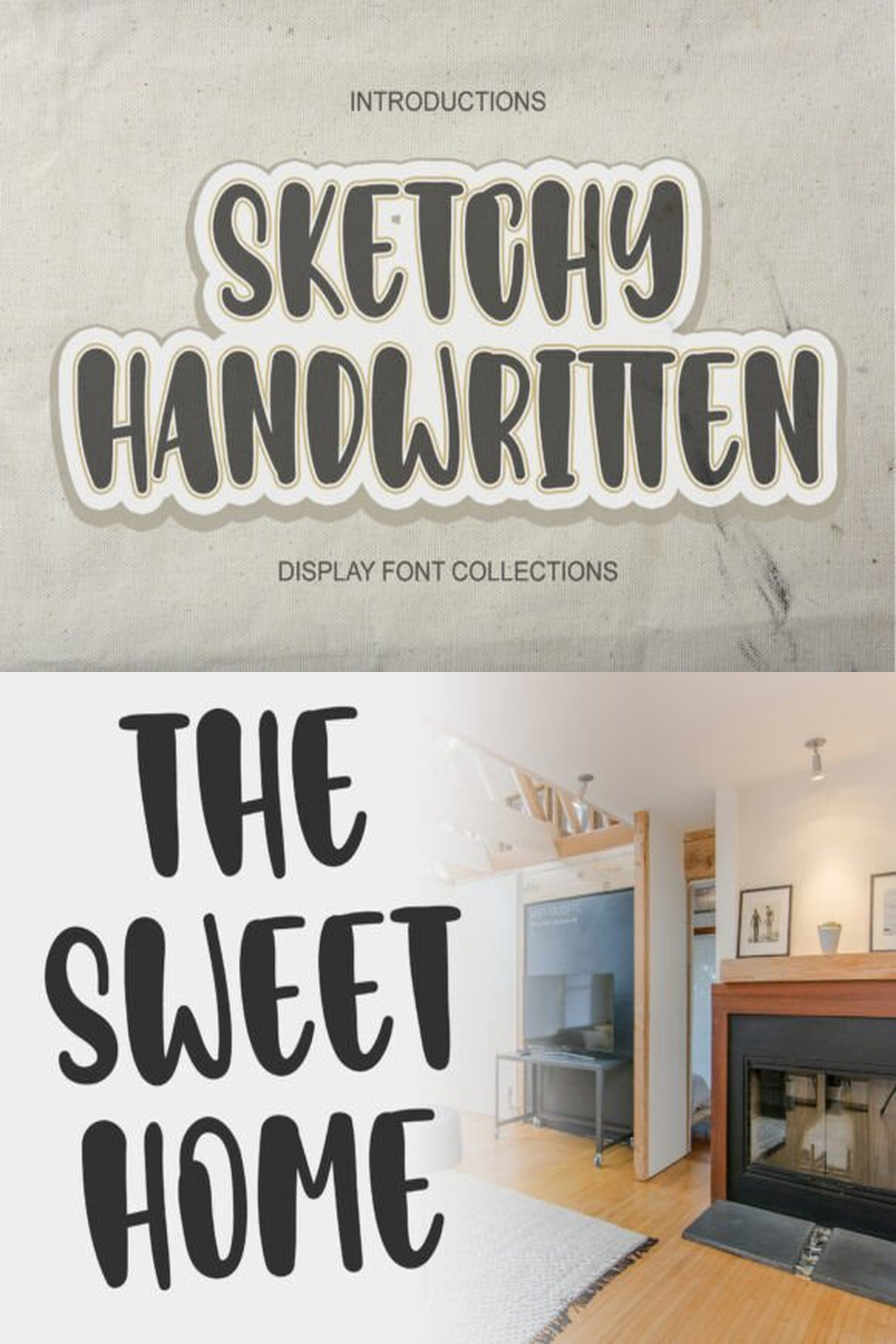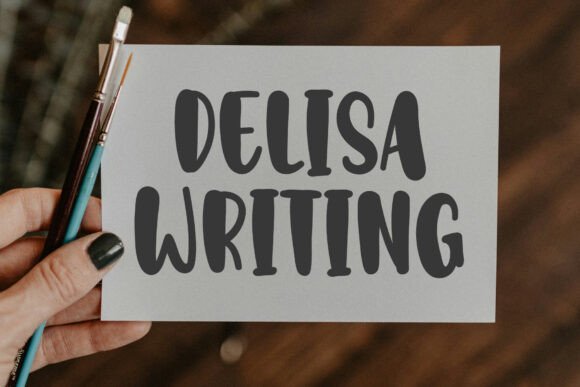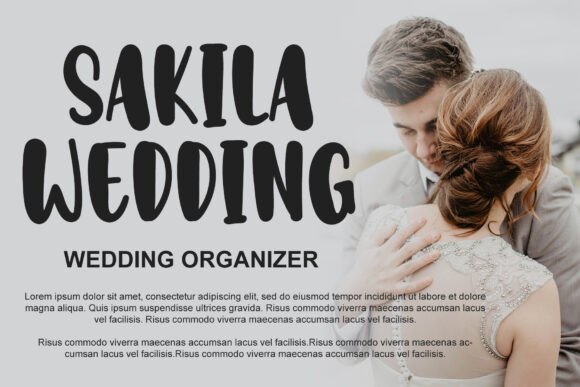
Sketchy Handwritten Font
About the Sketchy Handwritten Font
Get ready to be inspired by Sketchy Handwritten Font, a fresh and dynamic typeface for modern creators. Sketchy Handwritten is a stylish handwritten font with a contemporary atmosphere and impeccable form, inspired by timeless classic calligraphy. Balanced and varied, this font was designed to enhance the beauty of your projects.
Sketchy Handwritten Font Usage Examples